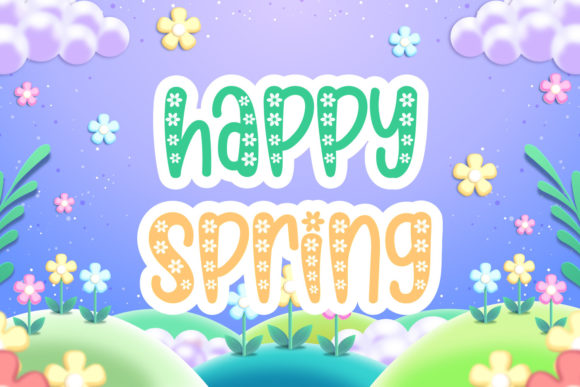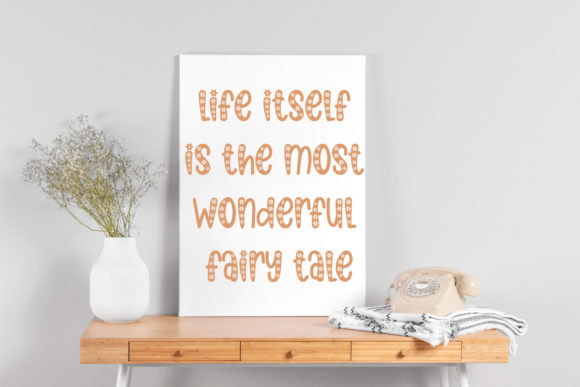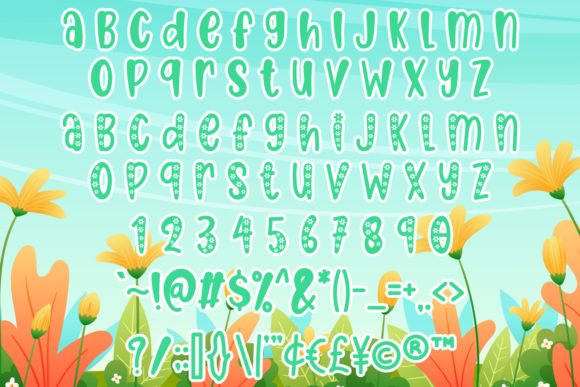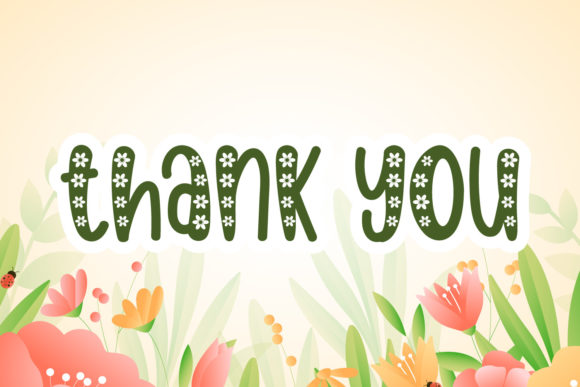
Discover the Joy of Flower Spring Font
Remember that moment when you stumbled upon the perfect font for your project? The one that made your design come alive, and you couldn’t stop smiling? That’s exactly what happens when you meet the Flower Spring Font.
This charming display font is designed to bring a touch of whimsy and friendliness to your creations. Whether you’re crafting a handmade card, designing a presentation, or working on a digital project, the Flower Spring Font is the perfect companion. Its quirky charm and cool vibe make it an instant favorite among designers, and for good reason – it’s versatile, easy to use, and adds a personal touch to any project.
As a designer, you know the value of a well-chosen font. The Flower Spring Font is more than just a pretty face; it’s a powerful tool that can elevate your work and make it stand out. So, why not give it a try and see how it can bring your designs to life?
Key Features of Flower Spring Font
- Character Count: The font includes a wide range of characters, including uppercase and lowercase letters, numbers, punctuation marks, and special symbols, totaling over 600 glyphs.
- Resolution: The font is designed to be resolution-independent, ensuring that it looks crisp and clear at any resolution, from 72 dpi to 300 dpi.
- Unique Characteristics: Flower Spring Font features a unique blend of modern and vintage elements, with intricate details and flourishes that add a touch of elegance to any design.
- Font Styles: The font includes 6 different font styles: Regular, Bold, Italic, Bold Italic, Outline, and Shadow, providing designers with a range of options to suit their creative needs.
Flower Spring Font Review
I’ve had the chance to work with the Flower Spring Font, and I must say it’s a unique and lovely addition to any design project. ✨ The flowing curves and delicate petals evoke a sense of whimsy and elegance, making it perfect for wedding invitations, baby announcements, or other occasions that require a touch of sweetness.
Here are some of the things that I like about the Flower Spring Font:
- ✨ Beautiful, hand-drawn style that’s reminiscent of watercolor paintings
- ✨ Excellent legibility, even at small font sizes
- ✨ Supports a wide range of languages, including Latin, Cyrillic, and more
However, I do have a few concerns:
- ⚠️ Some characters may not display correctly in certain operating systems or font renderers
- ⚠️ Limited availability in bold and italic weights
Overall, I think the Flower Spring Font is a lovely choice for designers looking for a unique and feminine touch. While it may have some limitations, the benefits far outweigh the drawbacks. With some careful planning and consideration, this font can add a beautiful and whimsical touch to any design project.
Tips for Getting the Most Out of Flower Spring Font
Here are a few tips to help you get the most out of the Flower Spring Font:
- Use the font in conjunction with bright and pastel colors to create a whimsical and playful atmosphere.
- Experiment with different font sizes and styles to add visual interest to your design.
- Combine the font with illustrations or graphics to create a unique and eye-catching design.
The Flower Spring Font is perfect for:
- Baby shower invitations and decorations.
- Wedding stationery and decorations.
- Children’s party invitations
Does the Flower Spring Font support Unicode characters?
Yes, the Flower Spring Font supports a wide range of Unicode characters, including Latin, Cyrillic, and Greek alphabets. This ensures that the font is suitable for use in various languages and scripts. However, please note that the font’s Unicode coverage may not be exhaustive, and some characters may not be supported.